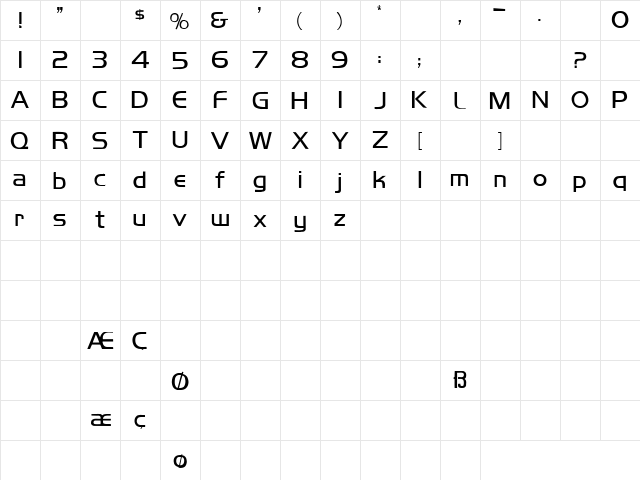
Bad Times 2 Regular
Design Context for Bad Times 2 Typeface
Bad Times 2 offers clean, dependable letterforms without strong stylistic allegiance, making it a practical choice for designers who need flexibility.